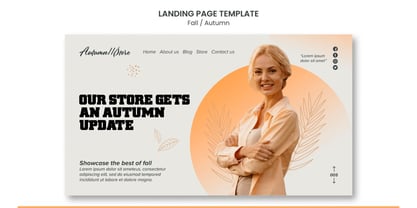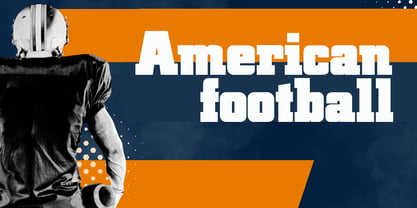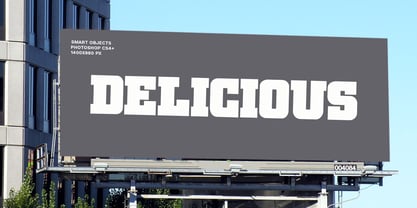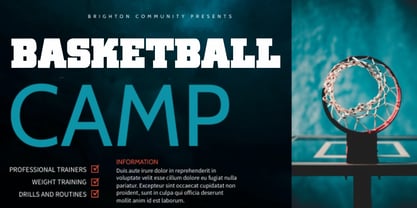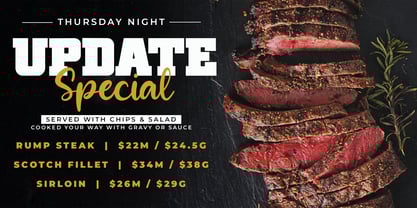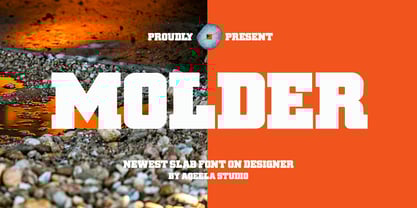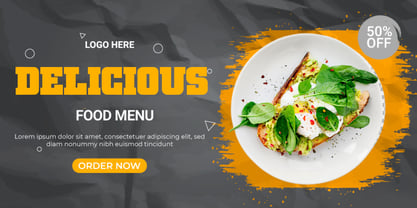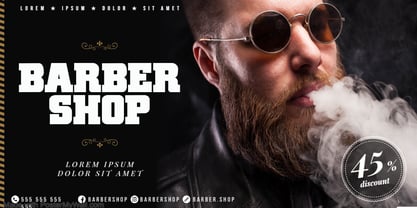
Molder
by Aqeela Studio
The Molder Font Family was designed by Muhammad Nasir and published by Aqeela Studio. Molder contains 1 styles.
Molder Bold: Where strength meets style in a slab serif font that commands attention with its robust yet refined letterforms, making every word a statement of confidence and clarity.